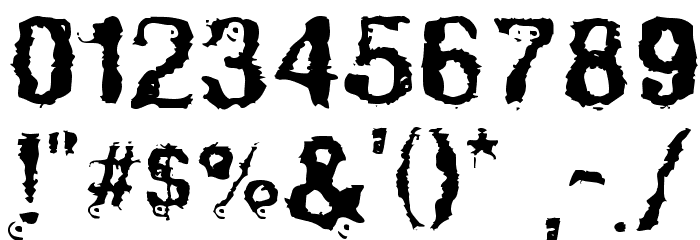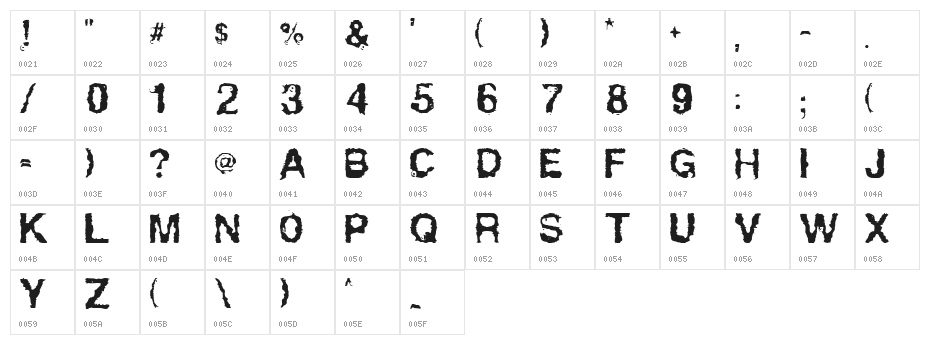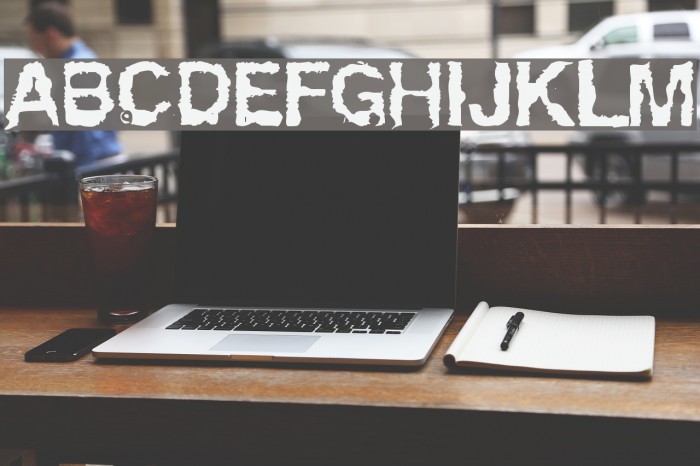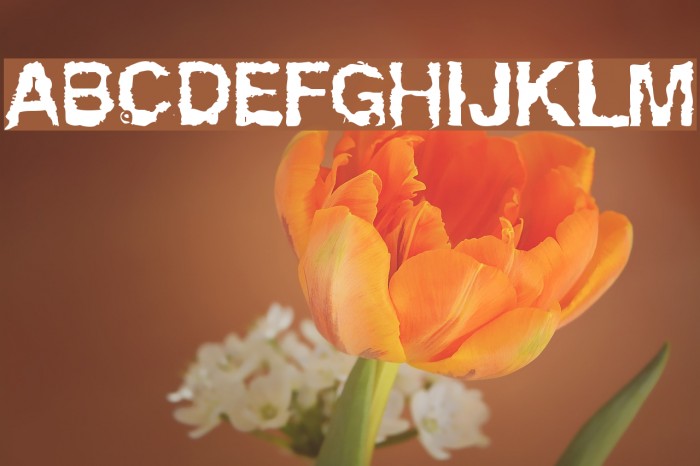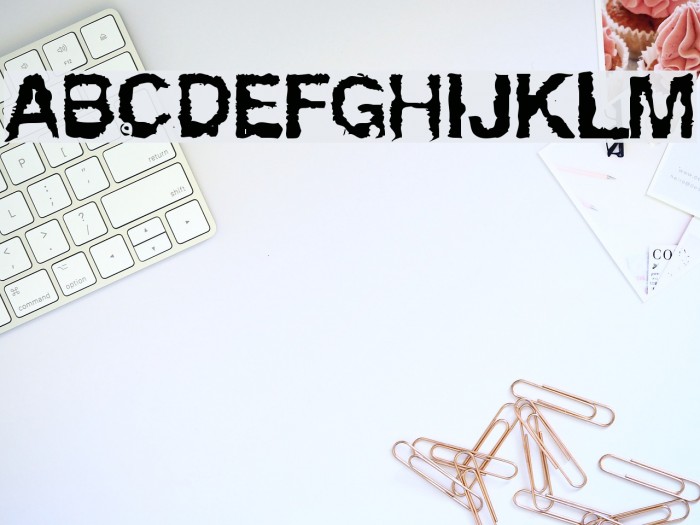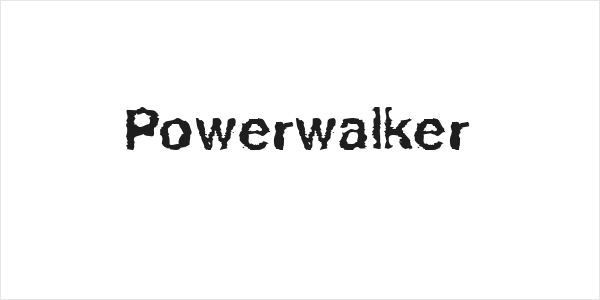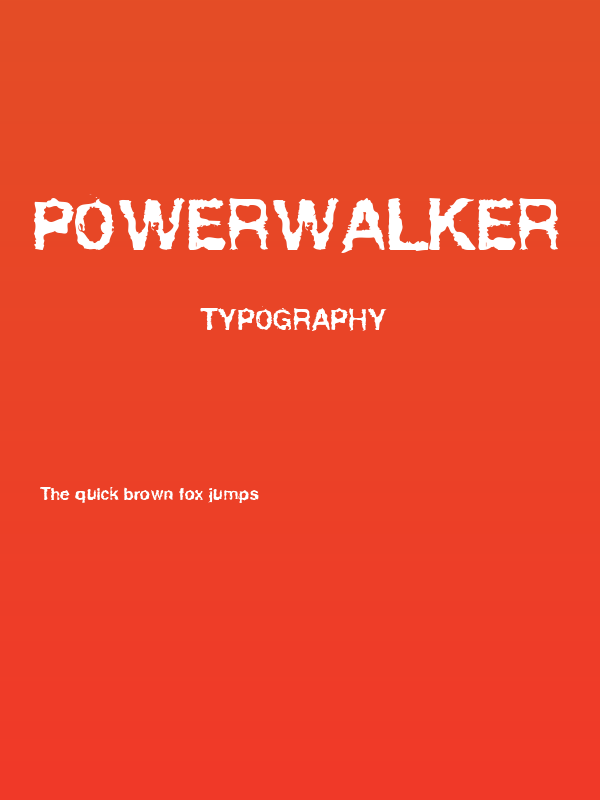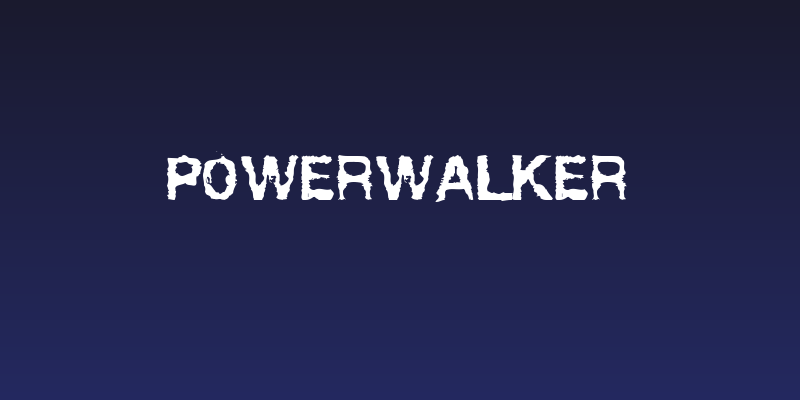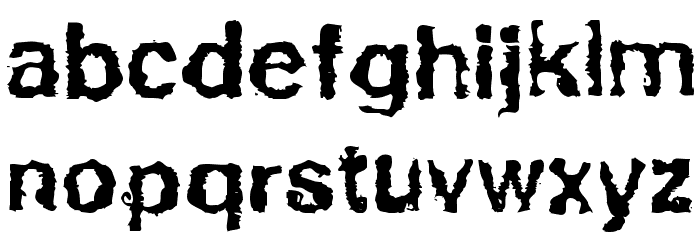
Powerwalker Font
Powerwalker Description
This font features a rugged, distressed appearance with irregular edges and a bold presence. The characters are heavily textured, giving them a worn, grunge-like aesthetic. The uppercase and lowercase letters maintain a consistent style, with the uppercase being slightly larger and more pronounced. Numbers and special characters follow the same distressed theme, making them ideal for creating an impactful visual statement. The font's unique style is reminiscent of vintage or industrial designs, adding a sense of rawness and authenticity to any project.
| Overall Style | Vintage, Industrial |
| Proposed Projects | Ideal for album covers, posters, branding for edgy or alternative products, and any design requiring a vintage or industrial feel. |